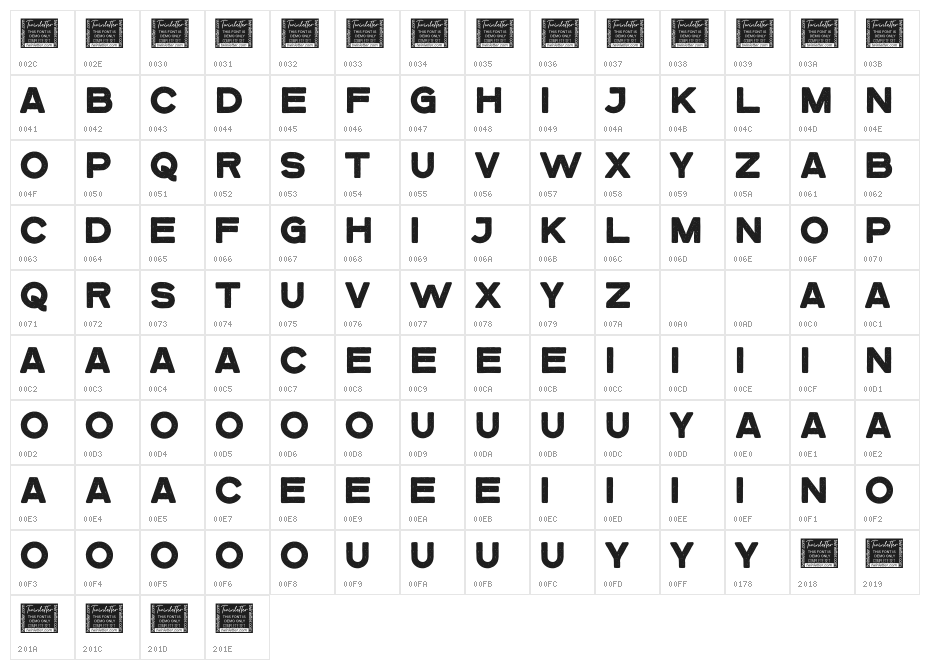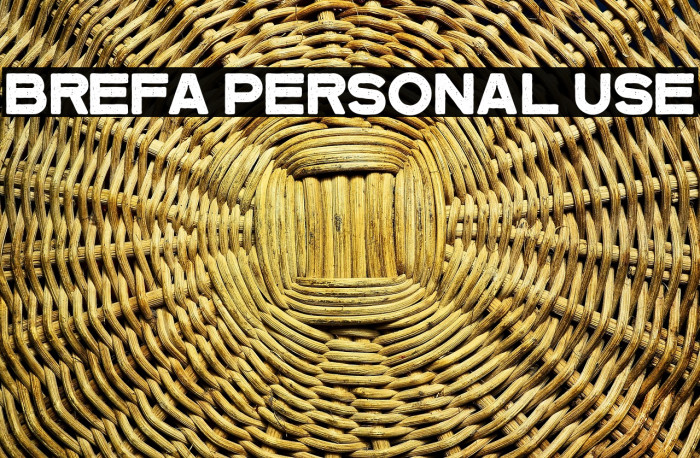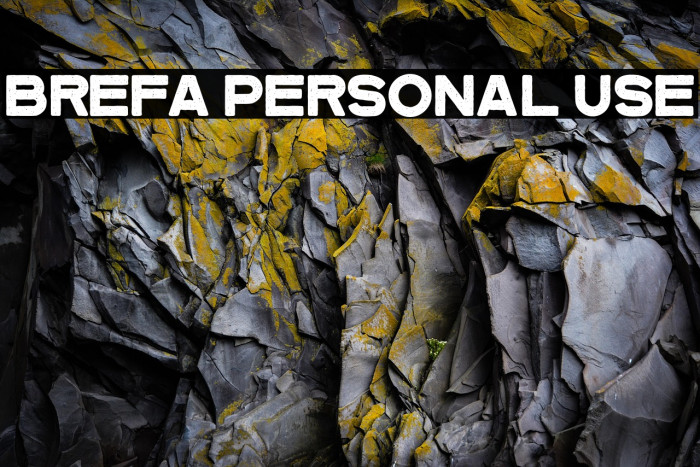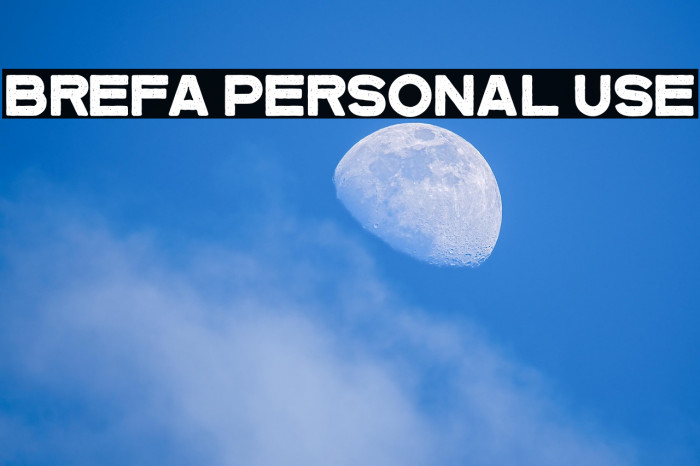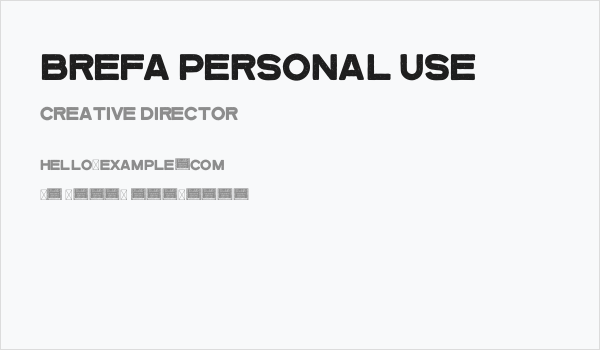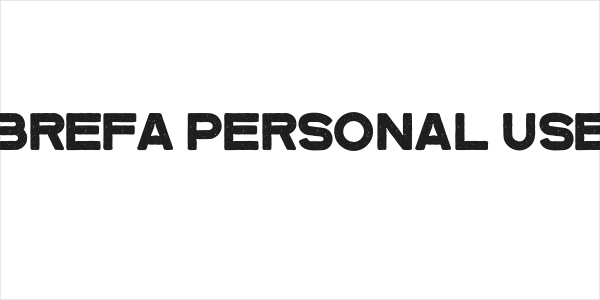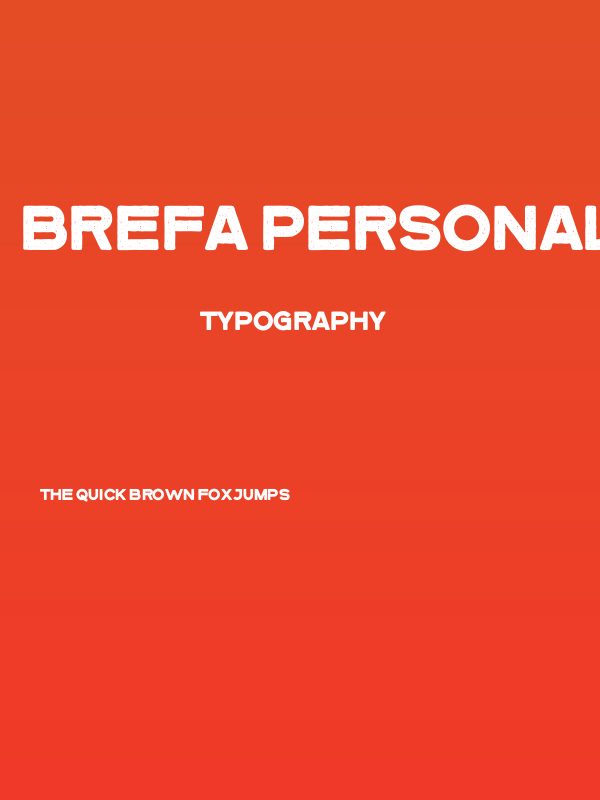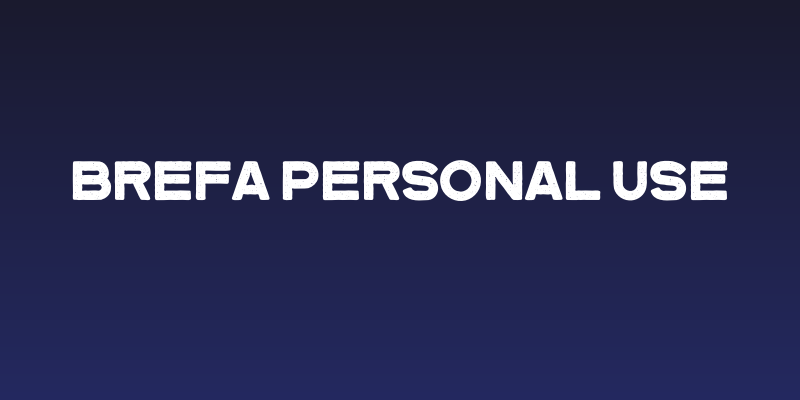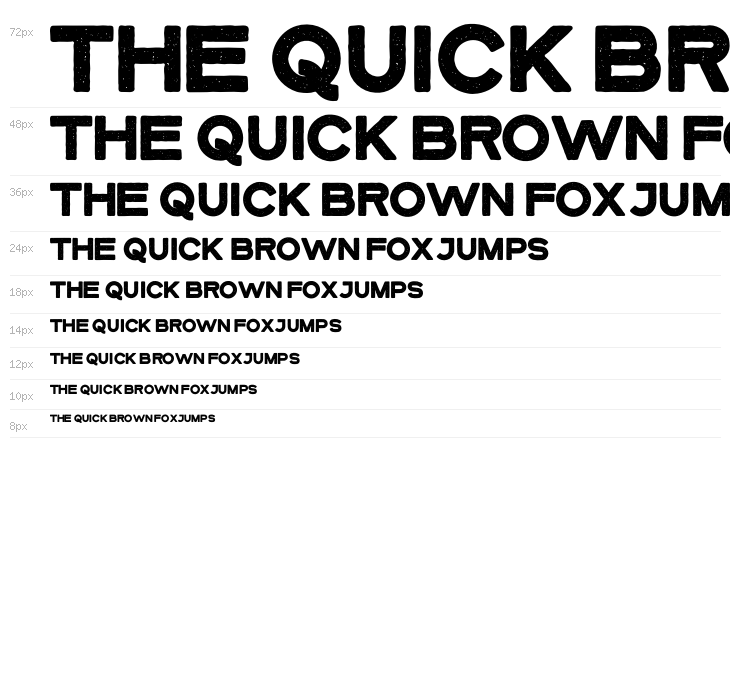
Brefa Personal Use Font
Brefa Personal Use Description
This font features a bold, textured style with a distressed appearance, giving it a rugged and vintage feel. The uppercase letters are uniformly designed with a consistent weight, offering a strong and impactful look. The characters have a slightly rounded edge, adding a touch of softness to the otherwise robust design. The font's distressed texture adds character and depth, making it suitable for projects that require a rustic or handcrafted aesthetic. The spacing between characters is normal, ensuring readability while maintaining its bold presence.
| Overall Style | Vintage |
| Use Case | Logos, Headlines, Posters |
| Proposed Projects | Ideal for branding, posters, and packaging designs that require a vintage or handcrafted look. |